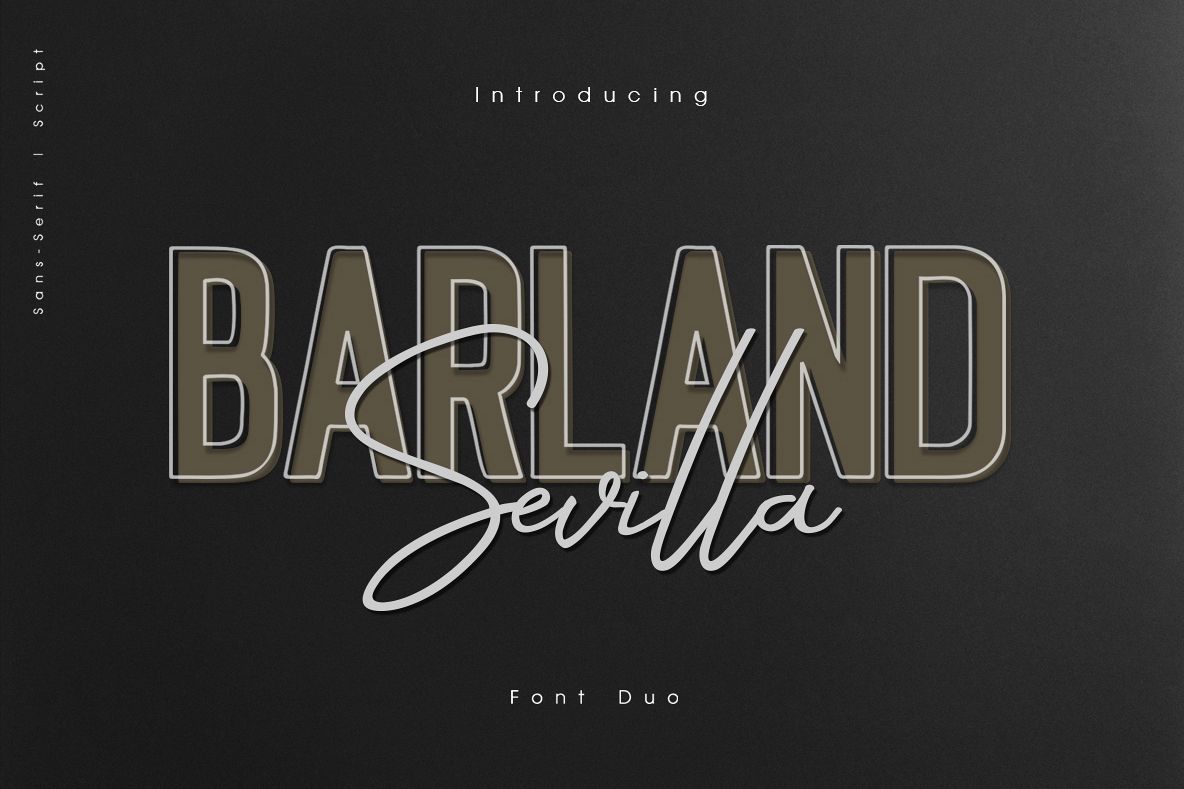
Barlan Sevila script & sans duo
Sevilla
Barland-outline
Introducing the Barland Sevilla script & sans duo, a classy, contemporary pair of script and serif fonts. With a stylish clean, outline and trace style serif font, expressive script companion, Barland Sevilla script & sans duo offers beautiful typographic harmony for a diversity of design projects, logo name, watermark logos & branding, wedding designs, social media posts, advertisements & product designs.
1. sevilla Script • A clean, free-flowing script font containing upper & lowercase characters, numerals and a large range of punctuation.
2. Barland  •  with a completely new set of upper & lowercase characters. If you wanted to avoid letters looking the same each time to recreate a custom-made style, or try a different word shape, simply switch to this font for an additional layout option.
3. Barland-outline • A classy serif font containing upper & lowercase characters, numerals and a large range of punctuation. Creates a perfect pairing contrast with the Sevilla Script fonts.
4. Sevilla Ligatures • If you are unable to access them with open type software. (If you have opentype software, ‘Discretionary Ligatures’ can be turned on for the Script fonts, which will automatically switch standard letter pairs into the provided ligatures).